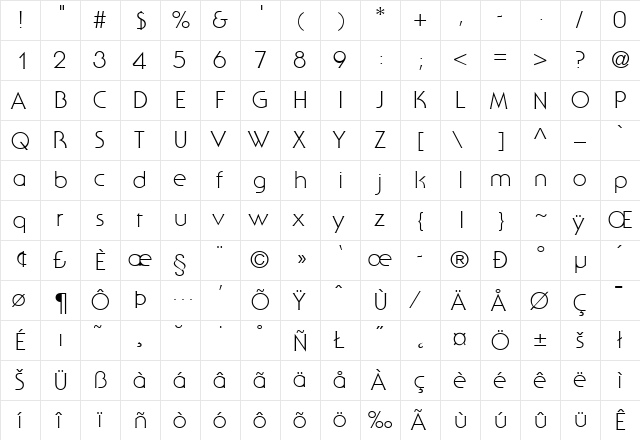
SerifGothic-Light Regular
Design Context for SerifGothic-Light Typeface
SerifGothic-Light brings classic typographic sensibility to the table — its serifs and measured letterforms reflect centuries of print heritage. The delicate stroke weight brings airiness and refinement to layouts.
Pro Tip: Set SerifGothic-Light at slightly larger body copy sizes than you would a regular-weight serif to compensate for its delicate stroke contrast.